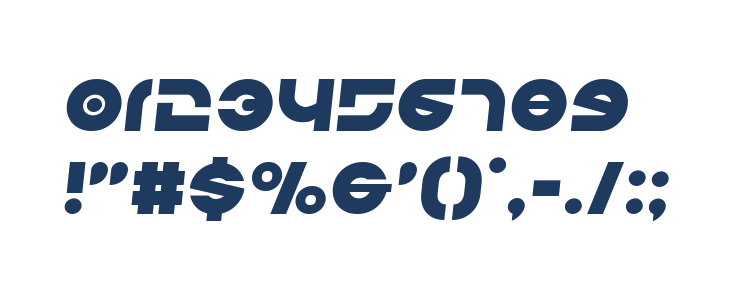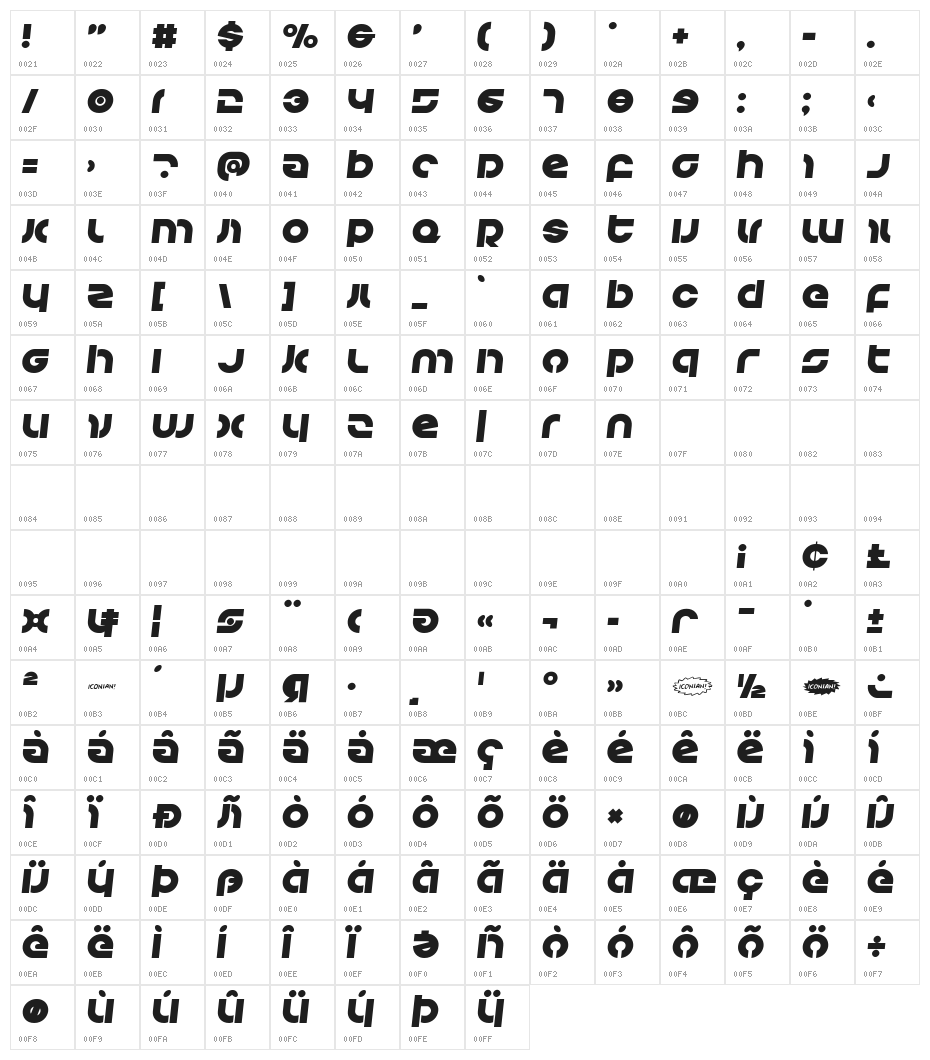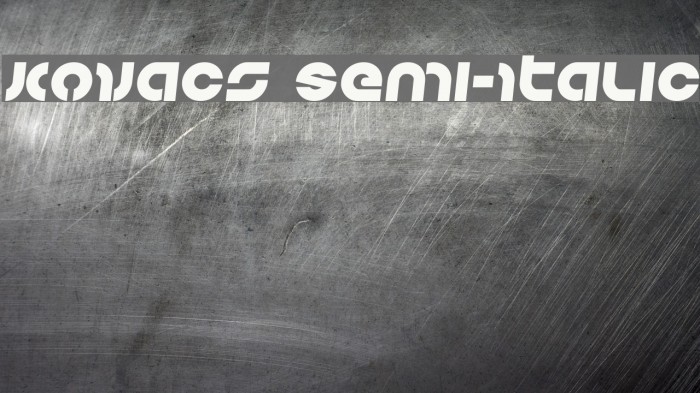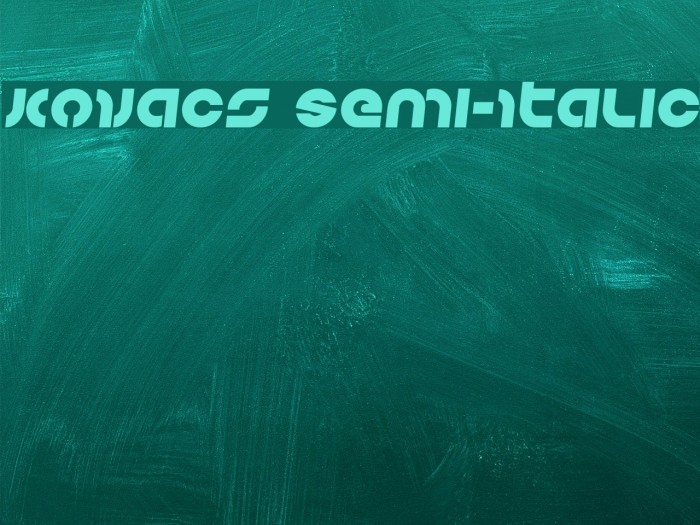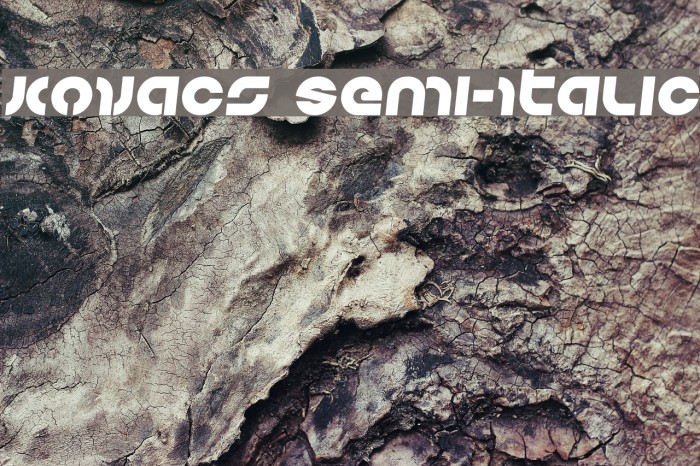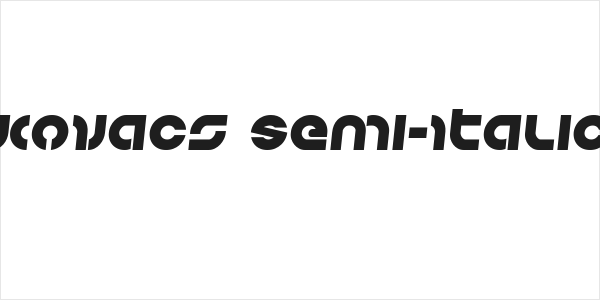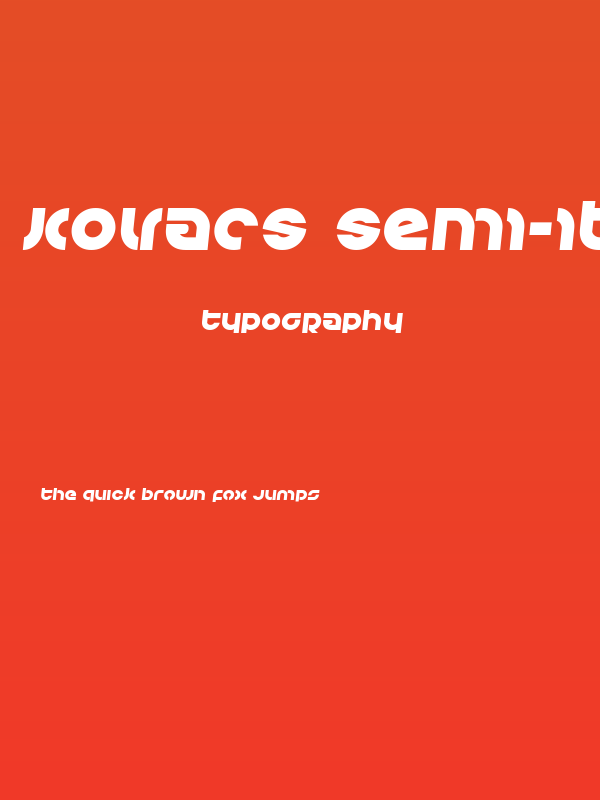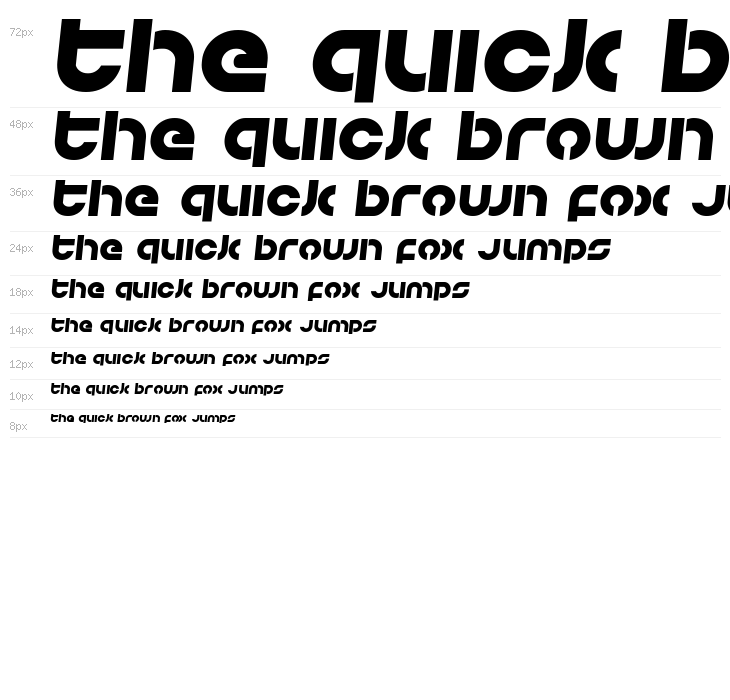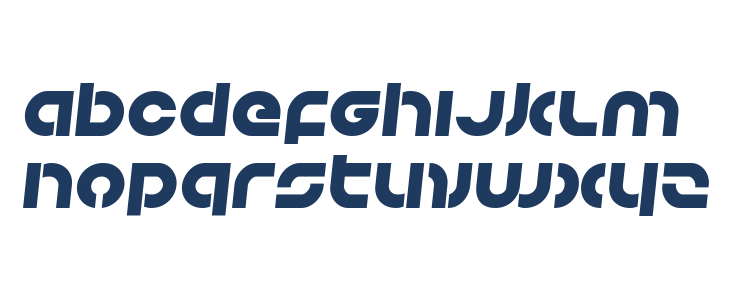
Kovacs Semi-Italic Font
Kovacs Semi-Italic Description
This font features a bold and dynamic design with a futuristic flair. The characters are constructed with geometric shapes, giving them a modern and innovative appearance. The semi-italic style adds a sense of motion and energy, making it stand out. The uppercase and lowercase letters maintain a consistent style, with rounded edges and a slight slant. Numbers and special characters follow the same design principles, ensuring uniformity across all glyphs. The font's unique style makes it suitable for creative and contemporary projects.